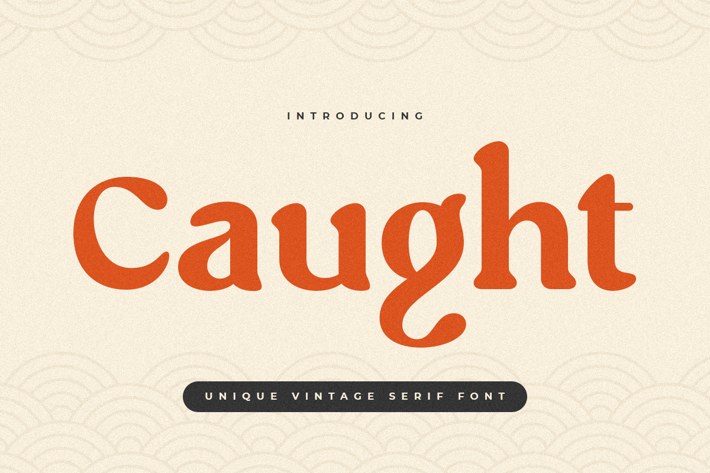
Caught - Unique Vintage Serif Font
Caught is Unique Vintage Serif font with a fancy, unique, and vintage serif, font that you can combine to get any variations and unique shapes easily just in seconds with choose alternates of them. It is a serif display font with moderate contrast that perfect for branding projects, logo, wedding designs, social media posts, advertisements, product packaging, product designs, label, photography, watermark, invitation, stationery, and any projects, it makes with a high level of legibility.